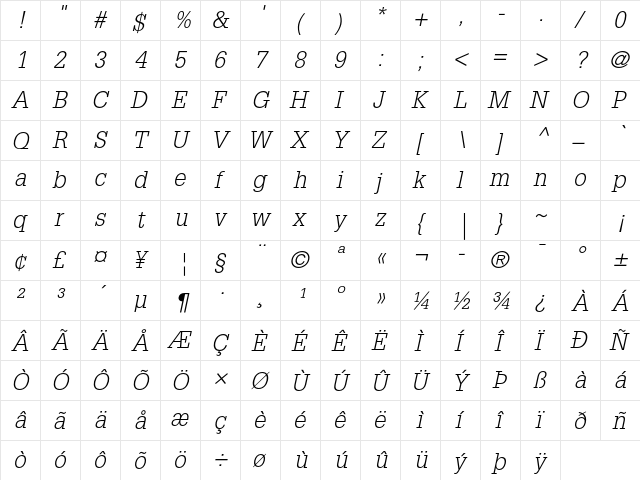
Glypha LT Std 45 Light Oblique Font Preview
| Designer | Adrian Frutiger |
Design Context for Glypha LT Std Typeface
Glypha LT Std offers clean, dependable letterforms without strong stylistic allegiance, making it a practical choice for designers who need flexibility. The dynamic lean of this cut emphasises speed and emphasis in any layout. The delicate stroke weight brings airiness and refinement to layouts.
Pro Tip: Try Glypha LT Std for annotation and caption copy alongside an upright companion — the contrast in angle creates a dynamic but ordered typographic system.